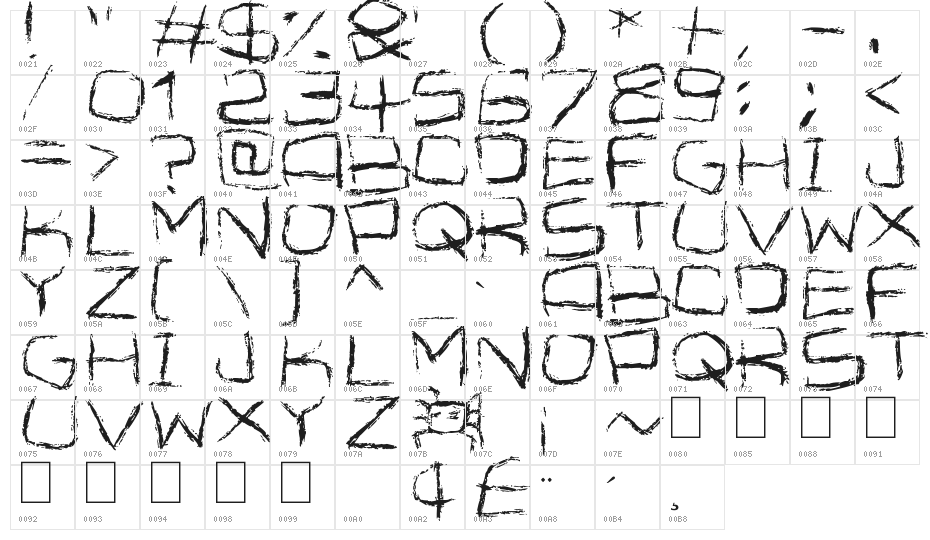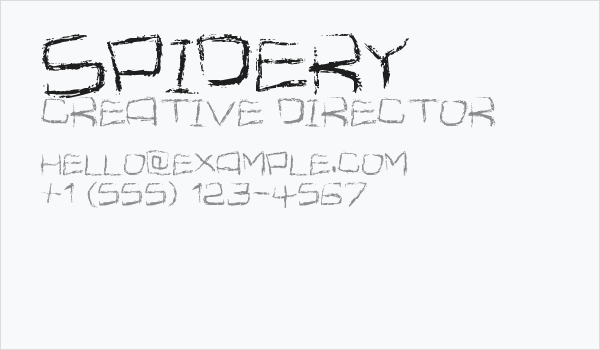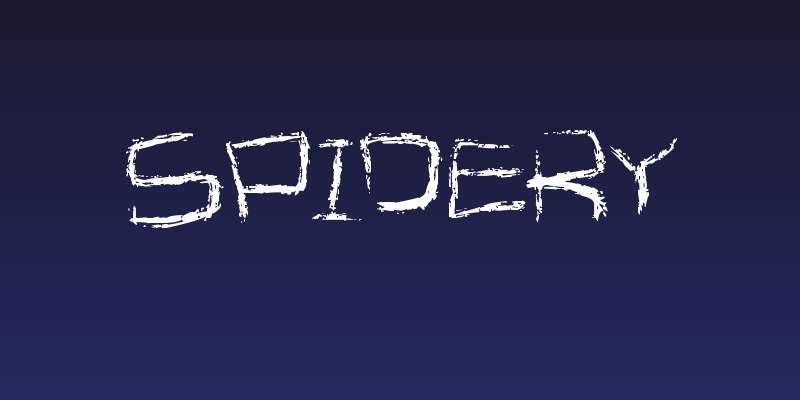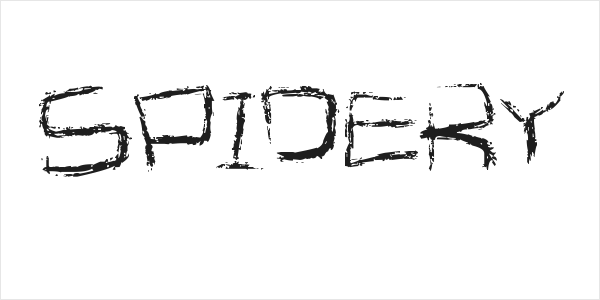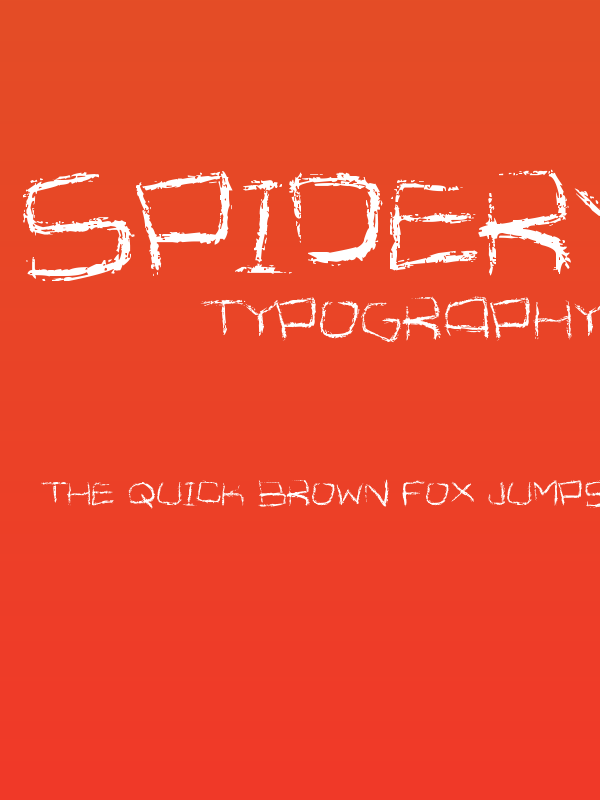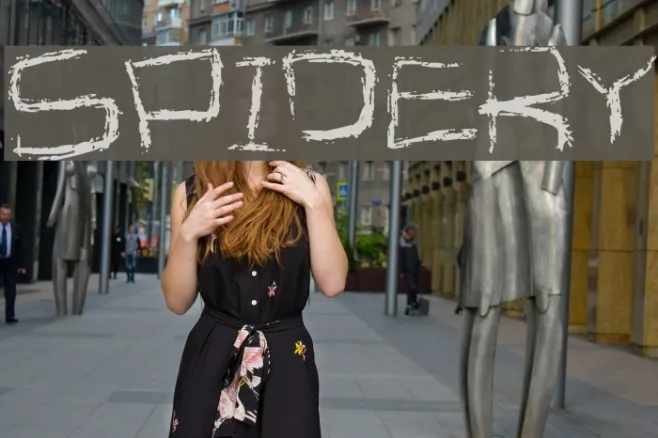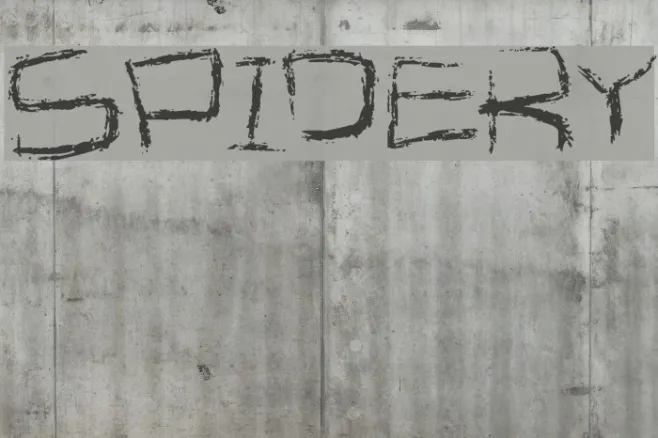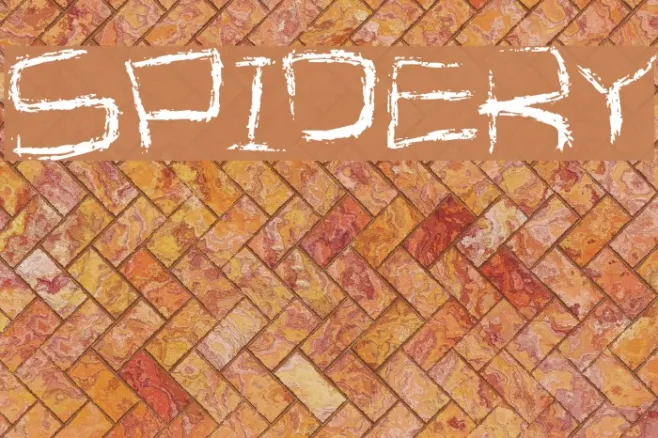
Spidery Font
Spidery Description
This font features a unique, distressed appearance with a spidery, web-like texture. The characters are irregular and have an organic, hand-drawn quality, giving them a rough and edgy look. The strokes are uneven, with varying thicknesses that create a dynamic and energetic feel. This font is highly decorative and stands out due to its unconventional style, making it suitable for creative and artistic projects. The uppercase and lowercase letters maintain a consistent style, while the numbers and special characters complement the overall design with similar textural elements.
| Proposed Projects | Ideal for Halloween-themed designs, horror movie posters, edgy branding, and artistic projects that require a unique and striking visual element. |